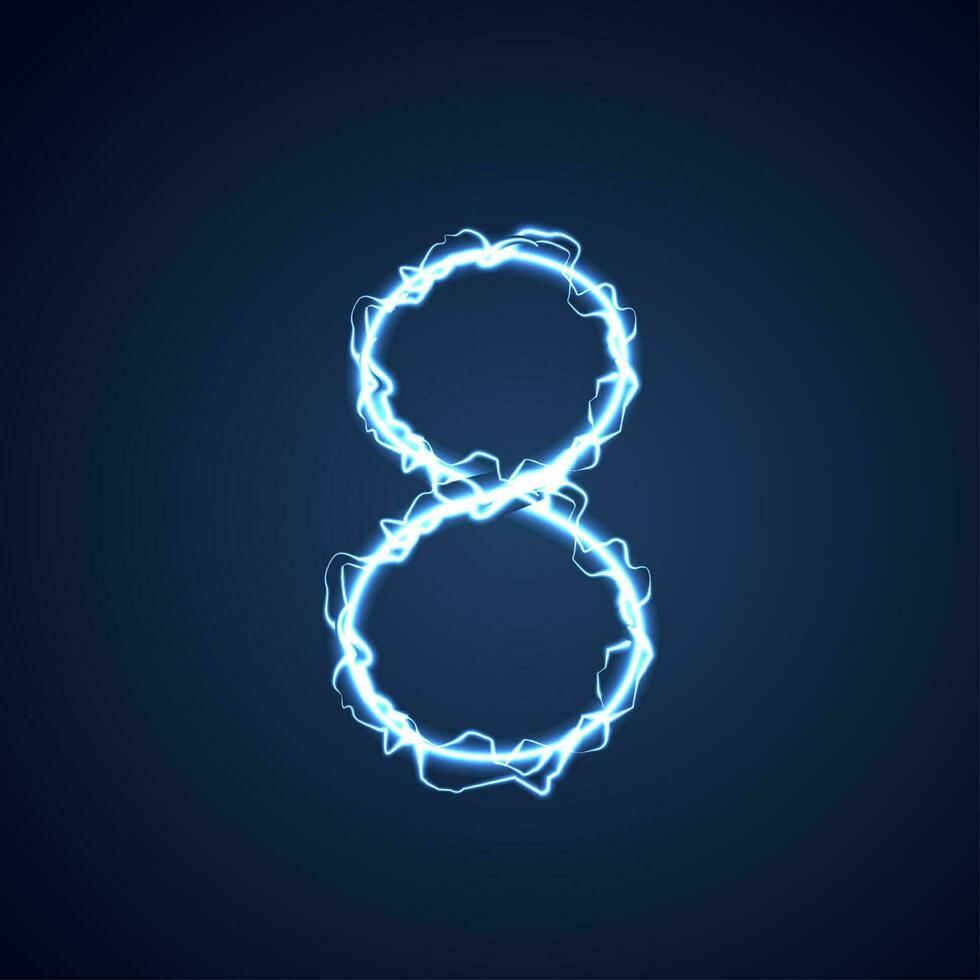
Blue lightning style letter or alphabet 8. lightning and thunder bolt or electric font, glow and sparkle effect on blue background. vector design. Pro Vector